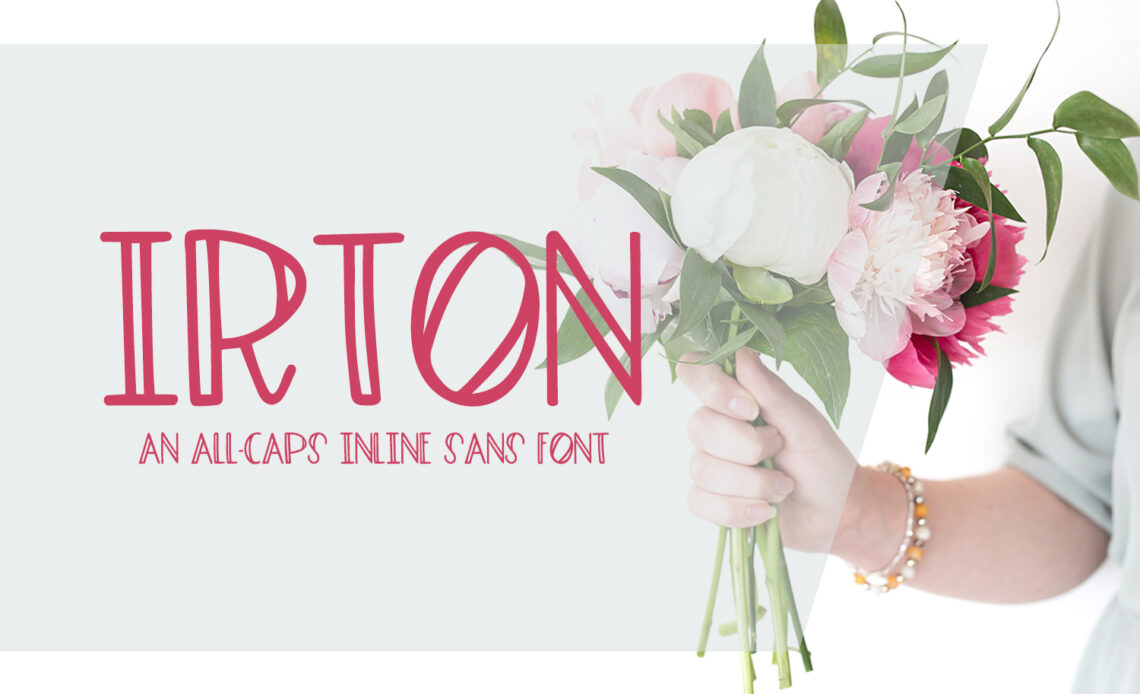
Irton Inline Font
Welcome to the captivating world of Irton Inline, a mesmerizing all-caps inline font crafted with the utmost precision and artistry. Inspired by the quaint charm and whimsical spirit of the English countryside, Irton holds the power to transform your creative endeavors into extraordinary masterpieces.
Irton's meticulously designed strokes exude an air of effortless elegance, inviting you to dance with words and paint captivating visual narratives. Each letterform is a work of art, meticulously shaped to evoke a sense of timeless beauty and rustic charm.
With its undeniable versatility, Irton Inline graces your designs with a touch of whimsy and sophistication. Its graceful curves and playful angles add a touch of magic to invitations, branding, packaging, and any project that yearns for a dash of rural allure.
Step into the enchanting realm of Irton Inline and unleash your creativity like never before. Allow this font to be your guiding light, leading you towards captivating designs that resonate with the warmth and charm of the countryside.